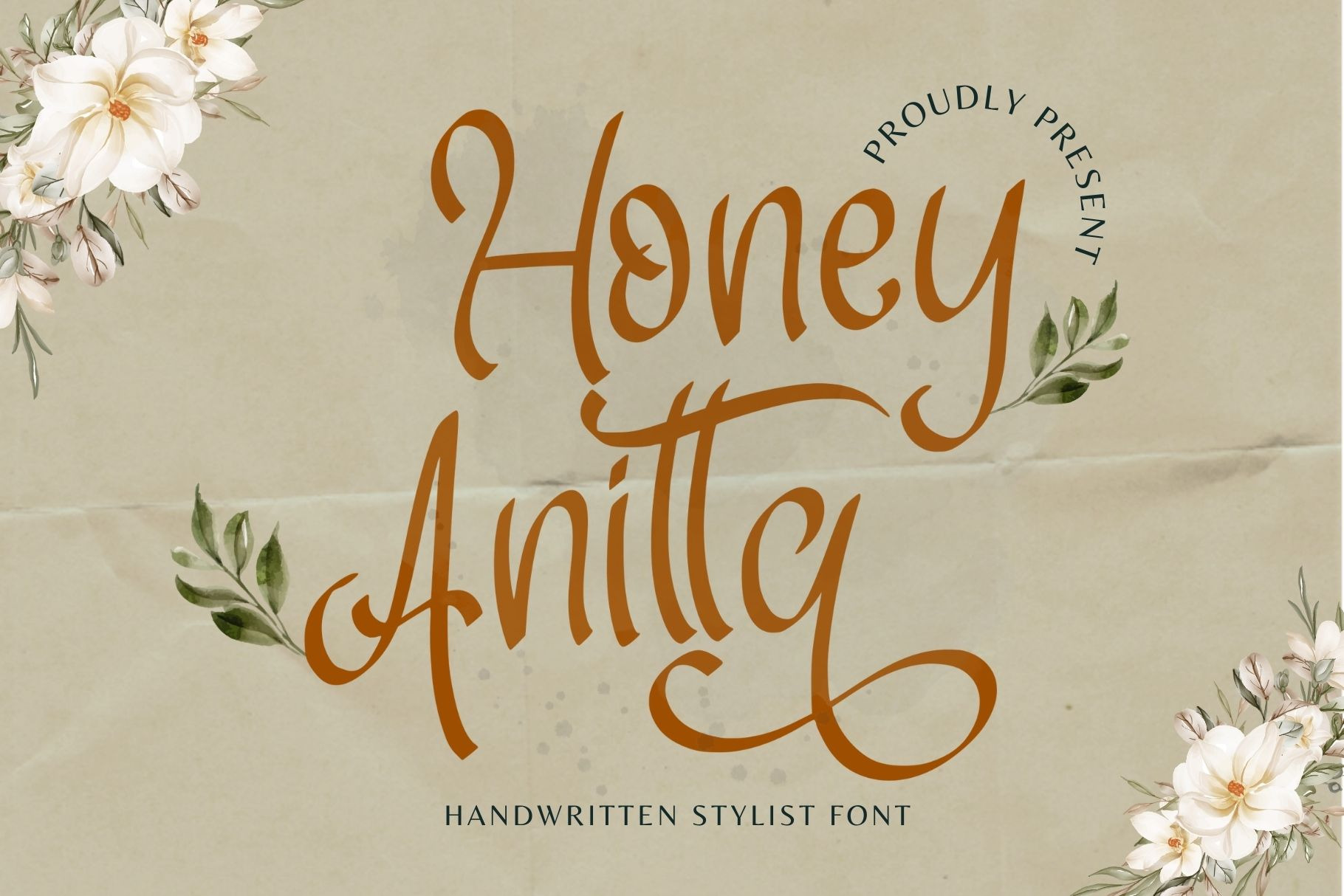
Honey Anitta | Handwritten Font
Honey Anitta is a font that exudes sophistication and refinement with its exquisite, elegant design. Its delicate, flowing letterforms and intricate flourishes create a luxurious, high-end look that is perfect for wedding invitations, logos, and upscale branding. Elegance Script is the perfect font to add a touch of refined beauty to any project. Keep in mind that the font is PUA encoded, meaning that you can access all delightful glyphs and swashes effortlessly.